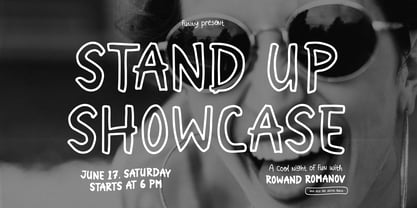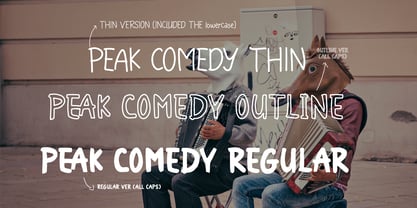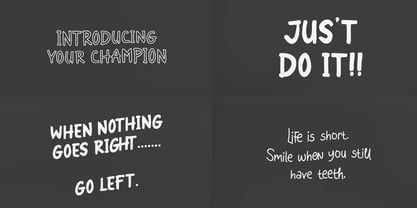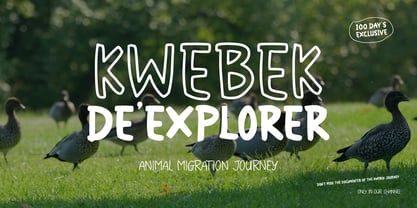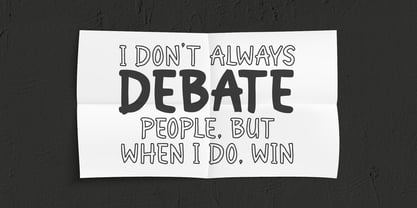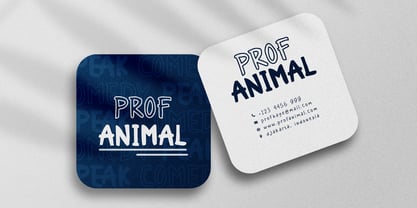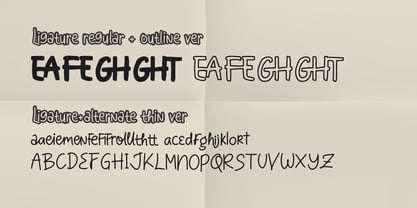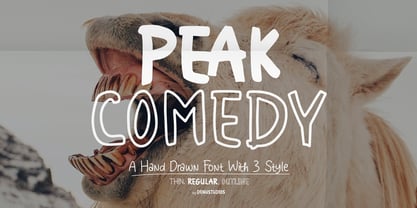
Peak Comedy
by Denustudio
The Peak Comedy Font Family was designed by Dede Nugraha and published by Denustudio. Peak Comedy contains 1 styles. More about this family
Peak Comedy | Hand Drawn Font, from Denustudios, suitable for any projects such as: logos, branding projects, homeware designs, product packaging, mugs, quotes, posters, shopping bags, t-shirts, book covers, name card, invitation cards, greeting cards, label, photography, watermark, special events, and all your other lovely projects that need a Hand Drawn Font taste.
• Alternate and Ligature
Designers: Dede Nugraha
Current Foundry: Denustudio